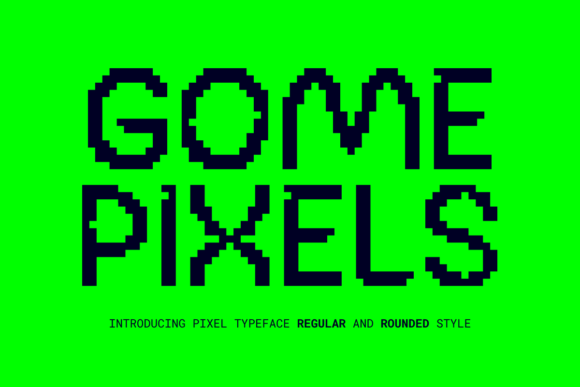
Gome Pixel Font: A Retro-Inspired Typeface for Modern Designs
In the realm of typography, fonts play a crucial role in conveying the tone and aesthetic of a design. For those seeking a font that embodies the nostalgia of retro games and computing, Gome Pixel Font is an excellent choice. This article will explore the features, inspiration, and uses of Gome Pixel Font, a typeface that is sure to elevate your designs.
Introduction to Gome Pixel Font
Gome Pixel Font is a thoughtfully crafted typeface, focused on the purpose of display. It features both uppercase and lowercase characters, making it a versatile option for various design applications. The font’s design is inspired by bitmap fonts, which were commonly used in early computer systems and video games. This inspiration is evident in the font’s pixelated aesthetic, which adds a touch of nostalgia to any design.
Key Features of Gome Pixel Font
- Display-focused design: Gome Pixel Font is designed to work well at large sizes, making it perfect for display purposes such as branding, titles, thumbnails, posters, and animation.
- Uppercase and lowercase characters: The font includes both uppercase and lowercase characters, ensuring that you have the flexibility to use it for a wide range of design applications.
- Inspired by bitmap fonts: The font’s design is inspired by bitmap fonts, which were commonly used in early computer systems and video games.
- Available in 2 styles: Gome Pixel Font is available in two styles: regular and rounded. This allows you to choose the style that best suits your design needs.
The Inspiration Behind Gome Pixel Font
Gome Pixel Font is the first release of the Fitrah Type, a type foundry that aims to create unique and high-quality fonts. The font’s design is inspired by bitmap fonts, which were commonly used in early computer systems and video games. Bitmap fonts were known for their pixelated aesthetic, which was a result of the technical limitations of early computer systems. Despite these limitations, bitmap fonts have become iconic and are still used today in various design applications.
The Design Process
The design process of Gome Pixel Font involved creating a font that would work well at large sizes and display purposes. The font’s designer aimed to create a typeface that would be versatile and suitable for use in retro game design and computing vibes. To achieve this, the designer carefully crafted each character, ensuring that they were legible and visually appealing.
Uses of Gome Pixel Font
Gome Pixel Font is a versatile typeface that can be used in various design applications. Some of the most suitable uses for this font include:
Retro Game Design
Gome Pixel Font is perfect for retro game design, as it embodies the nostalgia of old-school video games. The font’s pixelated aesthetic and bitmap-inspired design make it an excellent choice for game titles, menus, and other UI elements.
Computing and Technology
The font’s computing vibes make it an excellent choice for technology-related designs, such as software interfaces, website headers, and tech-themed posters.
Branding and Advertising
Gome Pixel Font can be used for branding and advertising purposes, such as logos, titles, and thumbnails. The font’s unique aesthetic can help brands stand out and create a memorable visual identity.
Posters and Animation
The font’s display-focused design makes it suitable for use in posters and animation. Gome Pixel Font can add a touch of nostalgia and retro flair to any poster or animation project.
Gome Pixel Font is a unique and versatile typeface that is sure to elevate your designs. Its retro-inspired aesthetic, display-focused design, and versatility make it an excellent choice for various design applications. Whether you’re working on a retro game design, computing-themed project, or branding and advertising campaign, Gome Pixel Font is a great option to consider.
Final Thoughts
In conclusion, Gome Pixel Font is a well-designed typeface that is sure to add a touch of nostalgia and retro flair to any design project. Its versatility, display-focused design, and unique aesthetic make it an excellent choice for designers seeking a font that embodies the spirit of retro games and computing.